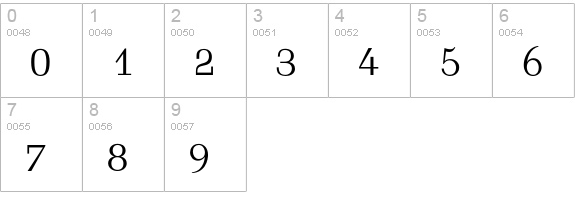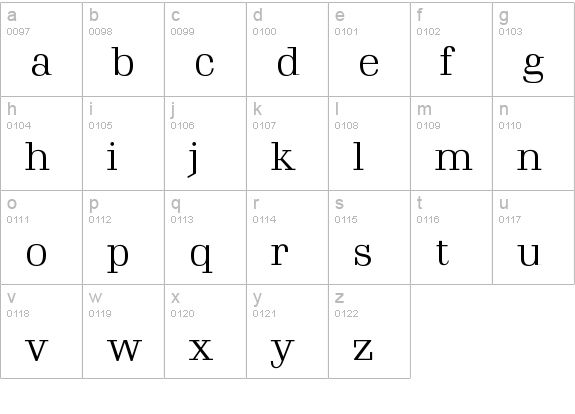
Schadow-Antiqua Book is a comfortable, highly readable variant in the Schadow typeface family \xE2\x80\x94 well suited to long-form body text, articles, and editorial content.
Schadow-Antiqua Book font is a timeless and elegant typeface that exudes sophistication and class. Its delicate serifs and graceful curves make it perfect for adding a touch of refinement to any design project. Whether you're working on a book cover, an invitation, or a corporate logo, this font will elevate your work to new heights. What sets Schadow-Antiqua Book font apart is not just its stunning aesthetics, but also the fact that it is available for free. Yes, you read that right - this remarkable font can be downloaded without any cost. FontsMarket.com is the go-to destination for designers and typographers seeking high-quality fonts, and Schadow-Antiqua Book is one of their prized offerings. Downloading this font is incredibly easy and convenient. Simply visit FontsMarket.com and search for Schadow-Antiqua Book font. Once you find it, you can download it with just a few clicks. No need to worry about licensing fees or restrictions - it is freely available for personal and commercial use. With Schadow-Antiqua Book font, you'll have the freedom to express your creativity without any limitations. Its versatility allows it to be used in a wide range of design projects, from traditional to contemporary. Whether you're creating a vintage-inspired poster or a sleek and modern website, this font will add the perfect touch of elegance. Don't miss out on this incredible opportunity to enhance your designs with Schadow-Antiqua Book font. Download it for free today at FontsMarket.com and unlock a world of possibilities. Let your creativity soar and watch as your designs come to life with this stunning and freely available font.